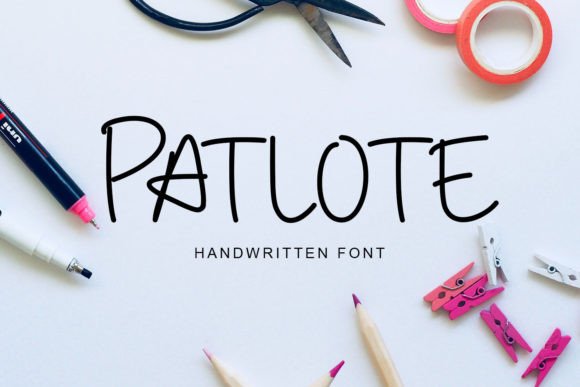
Patlote Font: The Ultimate Handwriting Font for Creative Ventures
In the world of typography, fonts play a crucial role in conveying the tone and personality of a design. Among the numerous fonts available, one font that stands out for its unique and casual style is the Patlote font. In this article, we’ll introduce you to the Patlote font, its features, and its versatility in various creative ventures.
Introducing Patlote Font
Patlote is a distinct and casually styled handwriting font that embodies a unique personal touch. Its authentic hand-drawn letter designs break away from the constraints of rigidity, making it an ideal choice for designers who want to add a touch of personality to their work. The font’s playful and friendly vibe is undeniable, and it will add an unmatched uniqueness to any design it graces.
Benefits of Using Patlote Font
The Patlote font offers several benefits that make it an excellent choice for various creative ventures. Some of the benefits include:
- Unique and Personal Touch: The Patlote font’s hand-drawn letter designs give it a unique and personal touch that sets it apart from other fonts.
- Versatility: The font is versatile and can be used in a variety of creative ventures, including personal invitations, greeting cards, journals, graphic designs, and social media platforms.
- Playful and Friendly Vibe: The Patlote font exudes a playful and friendly vibe that will add a touch of personality to any design.
Creative Ventures for Patlote Font
The Patlote font is suitable for a wide range of creative ventures. Here are some of the ways you can use the Patlote font:
- Personal Invitations: Use the Patlote font to create personalized invitations for special occasions such as weddings, birthday parties, and baby showers.
- Greeting Cards: The Patlote font is perfect for creating greeting cards for various occasions, including holidays, birthdays, and anniversaries.
- Journals: Add a personal touch to your journal with the Patlote font. You can use it to create a unique and personalized journal that reflects your personality.
- Graphic Designs: The Patlote font can be used in graphic designs, such as brochures, flyers, and posters.
- Social Media Platforms: Use the Patlote font to create engaging and personalized social media posts that stand out from the crowd.
Tips for Using Patlote Font
In conclusion, the Patlote font is a unique and versatile handwriting font that is perfect for various creative ventures. Its playful and friendly vibe makes it an excellent choice for designers who want to add a personal touch to their work. With its ease of use and customization options, the Patlote font is a must-have for any designer looking to create engaging and personalized designs.